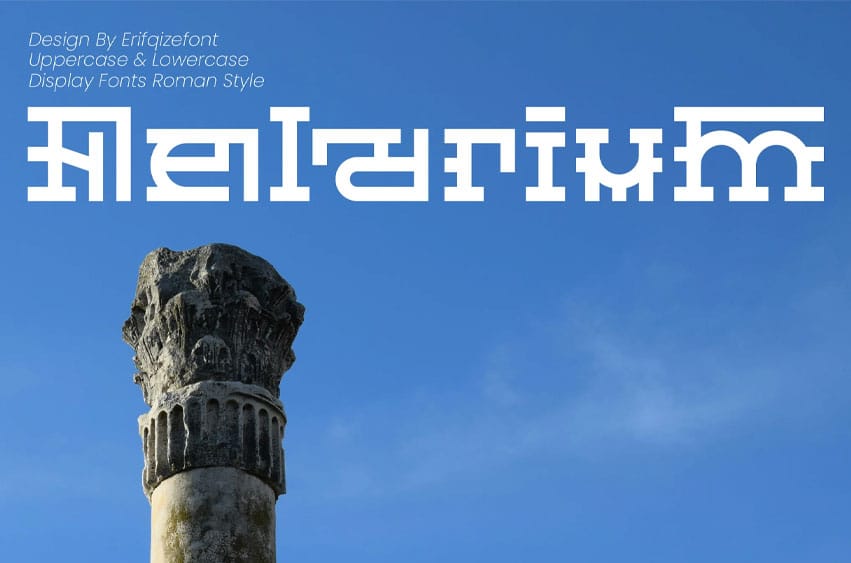
Felarium Font is a bold display font inspired by the grandeur of ancient Roman architecture and inscriptions. Its geometric letterforms blend historical elegance with a modern, structured edge—creating a timeless typographic identity.
Each character is carefully crafted with strong proportions, decorative serifs, and symmetrical elements that echo the classical Roman aesthetic. Perfect for headlines, posters, logos, or any design that seeks a monumental and cultural feel.